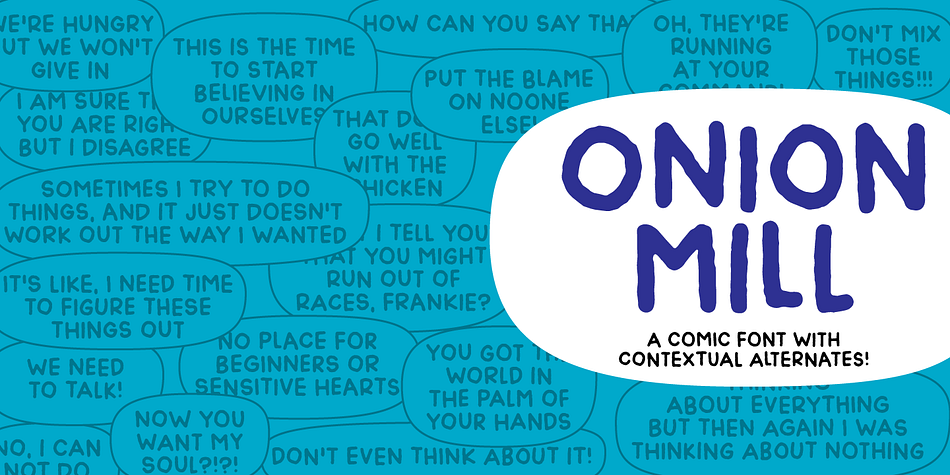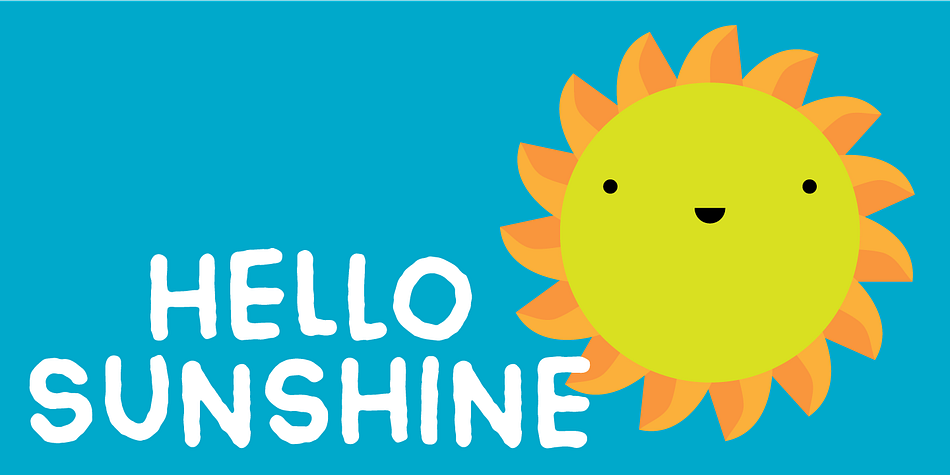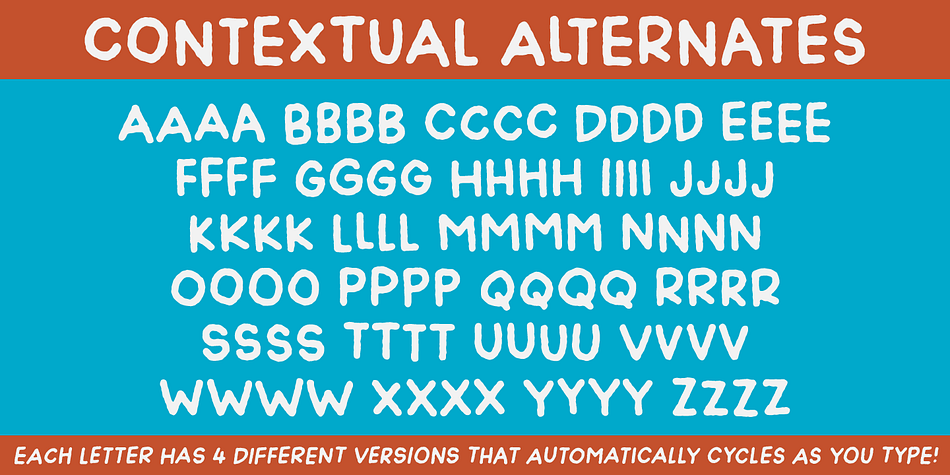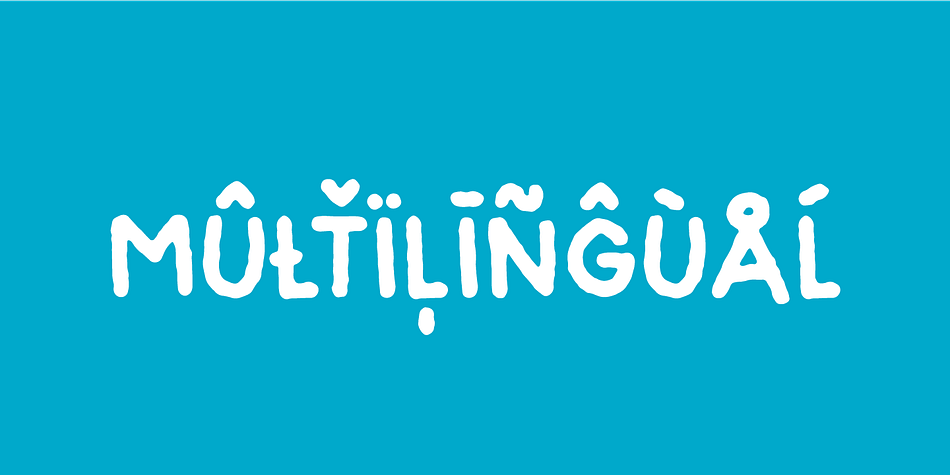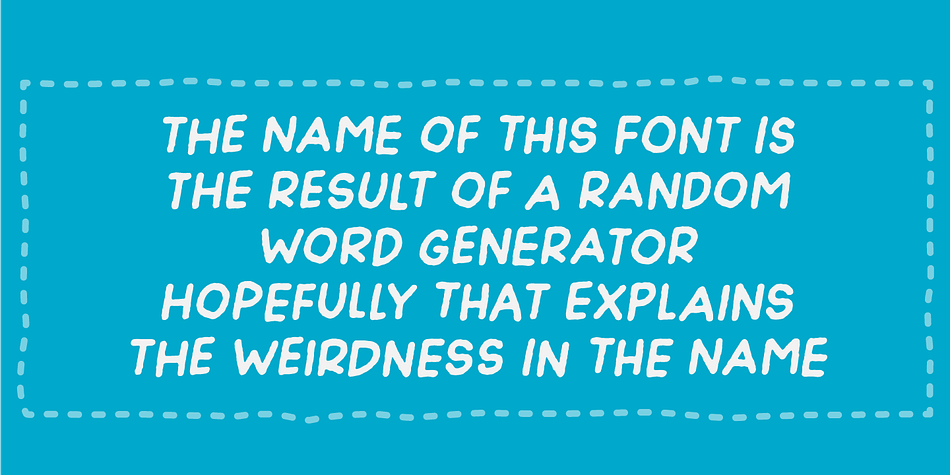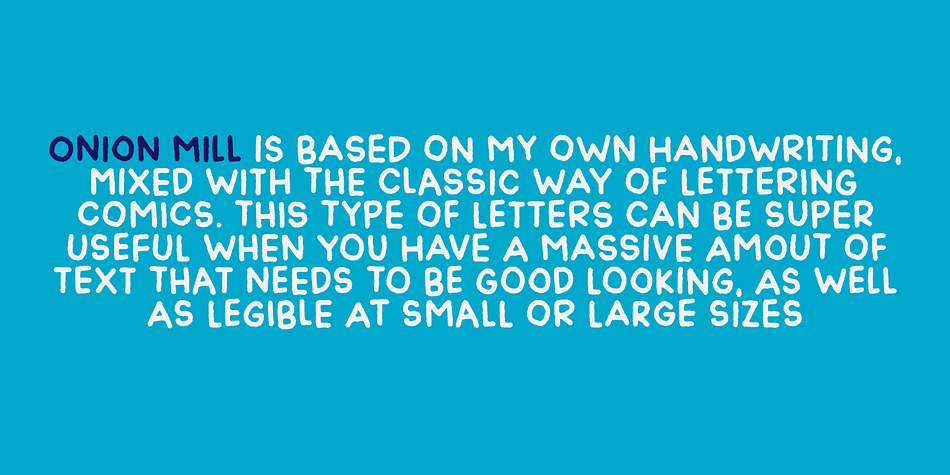
Designed by Jakob Fischer, Onion Mill is a comic font family. This typeface has two styles and was published by Pizzadude.dk.
Onion Mill is based on my own handwriting, when I want to mimic the classic letters from comics. This type of texting can be super useful when you have a massive amount of text that needs to be good looking, as well as legible! You have 4 different versions of each letter to choose from - enough to randomise the appearance of your text!